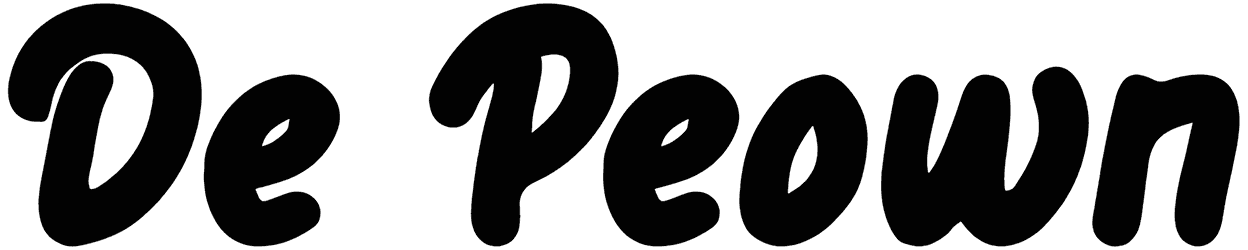
De Peown Font
Delightful and stimulating as a spring breeze, this De Peown font, which is inspired by handmade effects, boosts your making them tap into the world of leading ones in the blink of an eye.